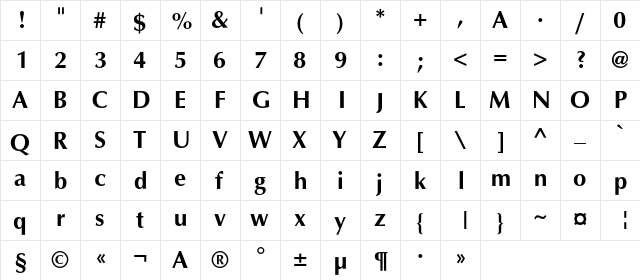
AGOpusC Bold
Design Context for AGOpusC Typeface
AGOpusC is a composed and adaptable typeface that performs quietly and consistently across a wide range of design contexts. Its bold stroke weight gives it real presence on the page.